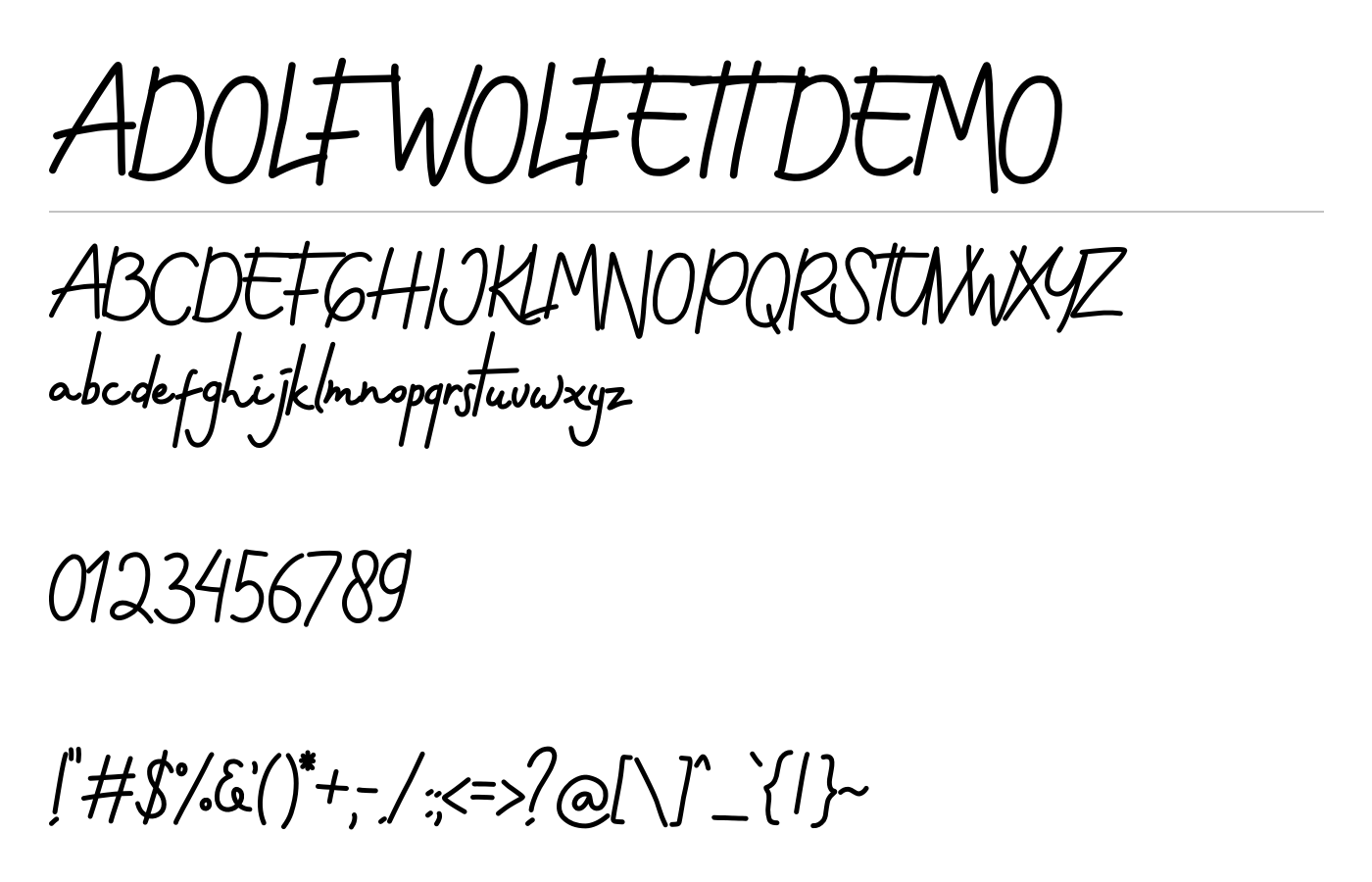
Adolf Wolfett Demo is a tall, narrow handwritten sans serif font with a casual, playful style that feels both modern and approachable. Its slim strokes and slightly irregular letterforms give it a lively, informal character, making it well suited for creative projects, casual branding, and expressive headlines where personality and energy are desired. This font works best in displays, posters, and digital designs that benefit from a fresh, handwritten touch.
ADOLF WOLFETT DEMO Font